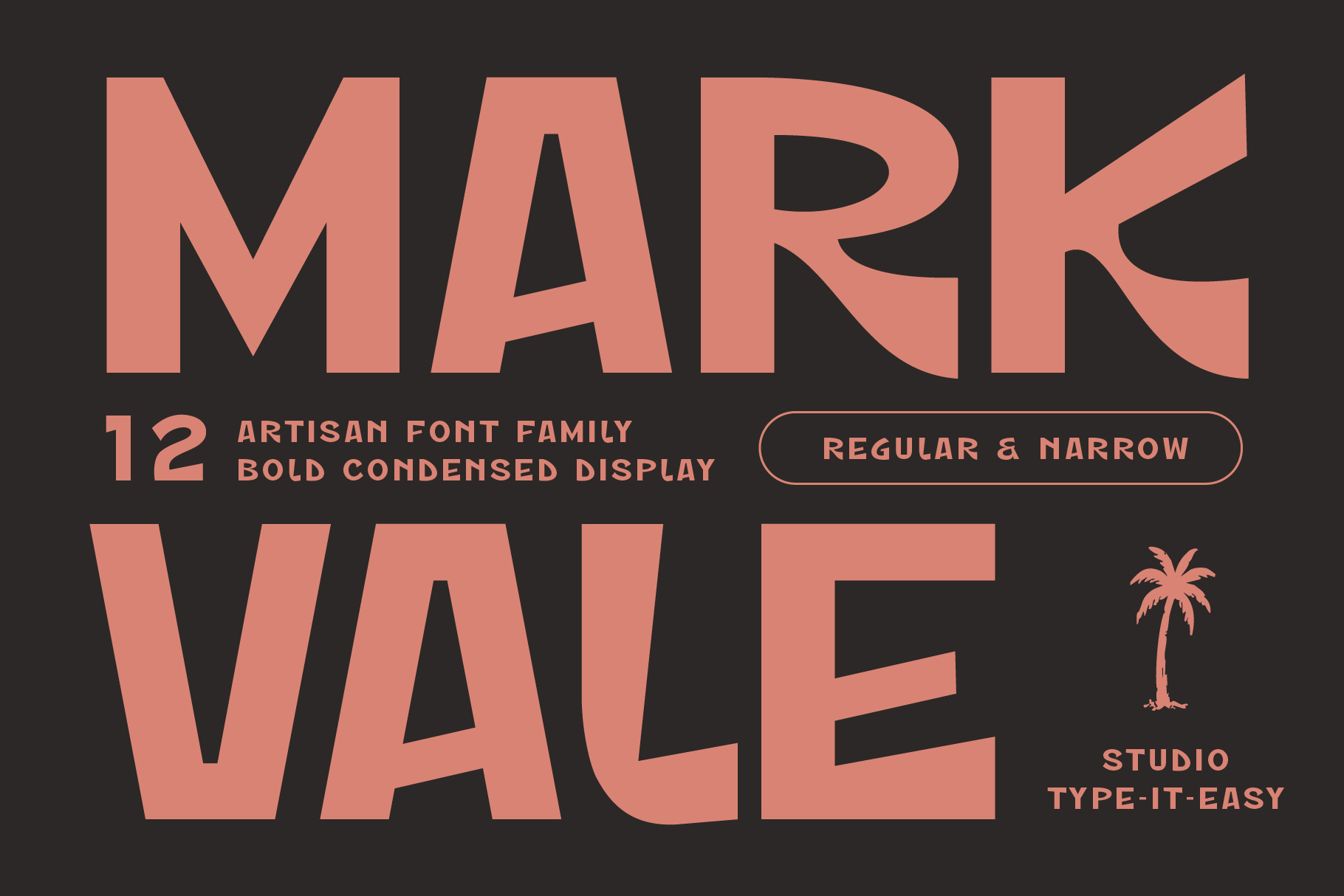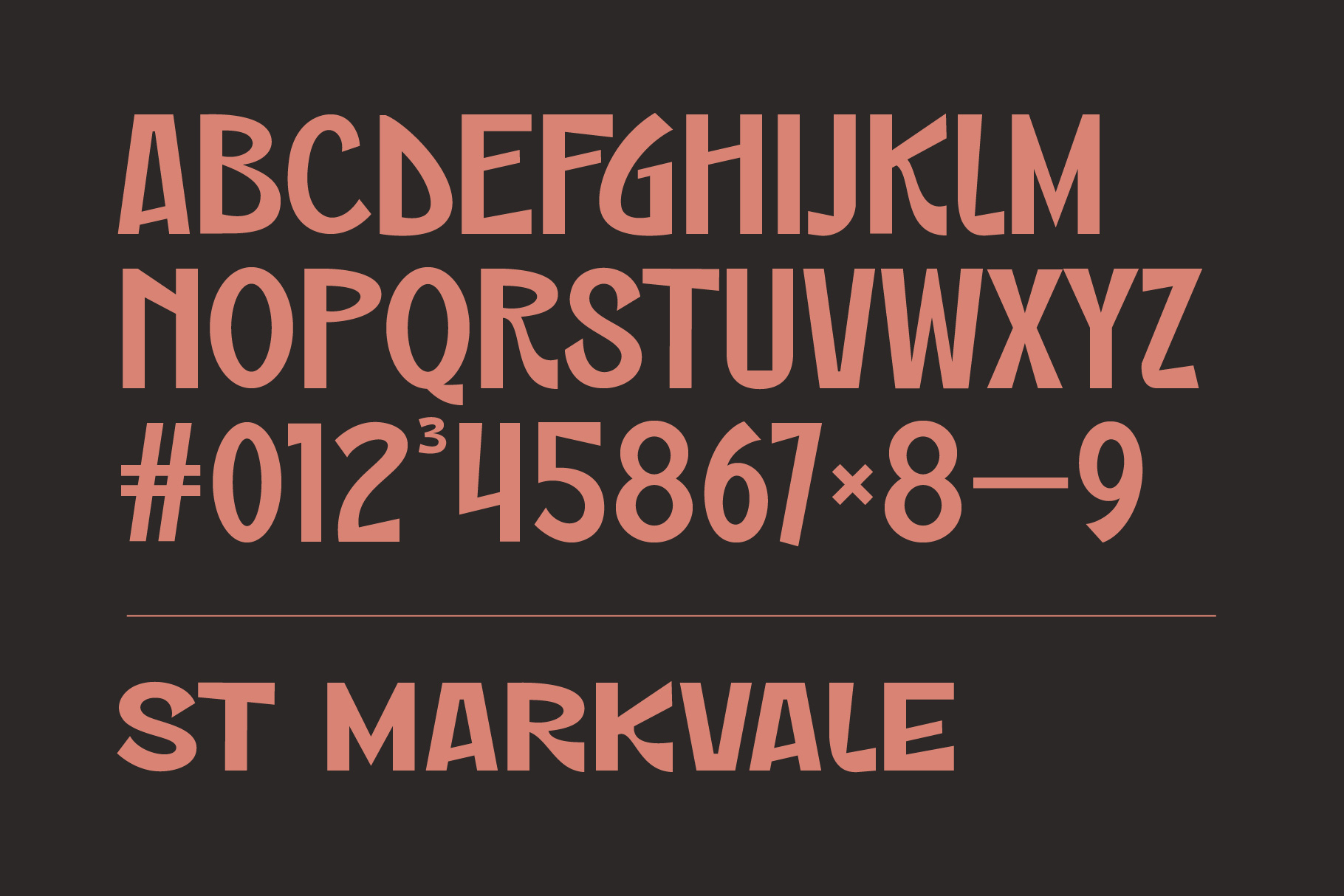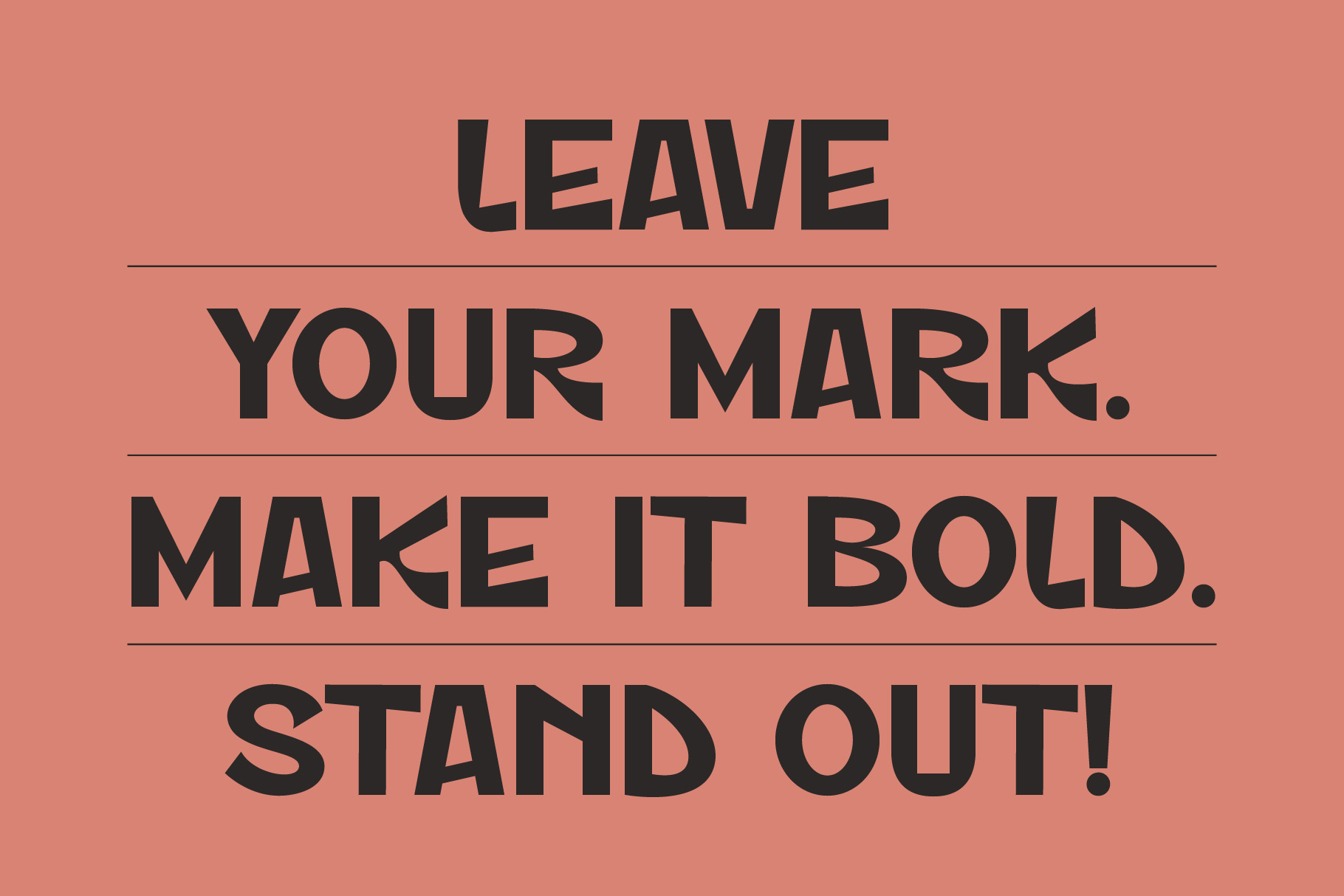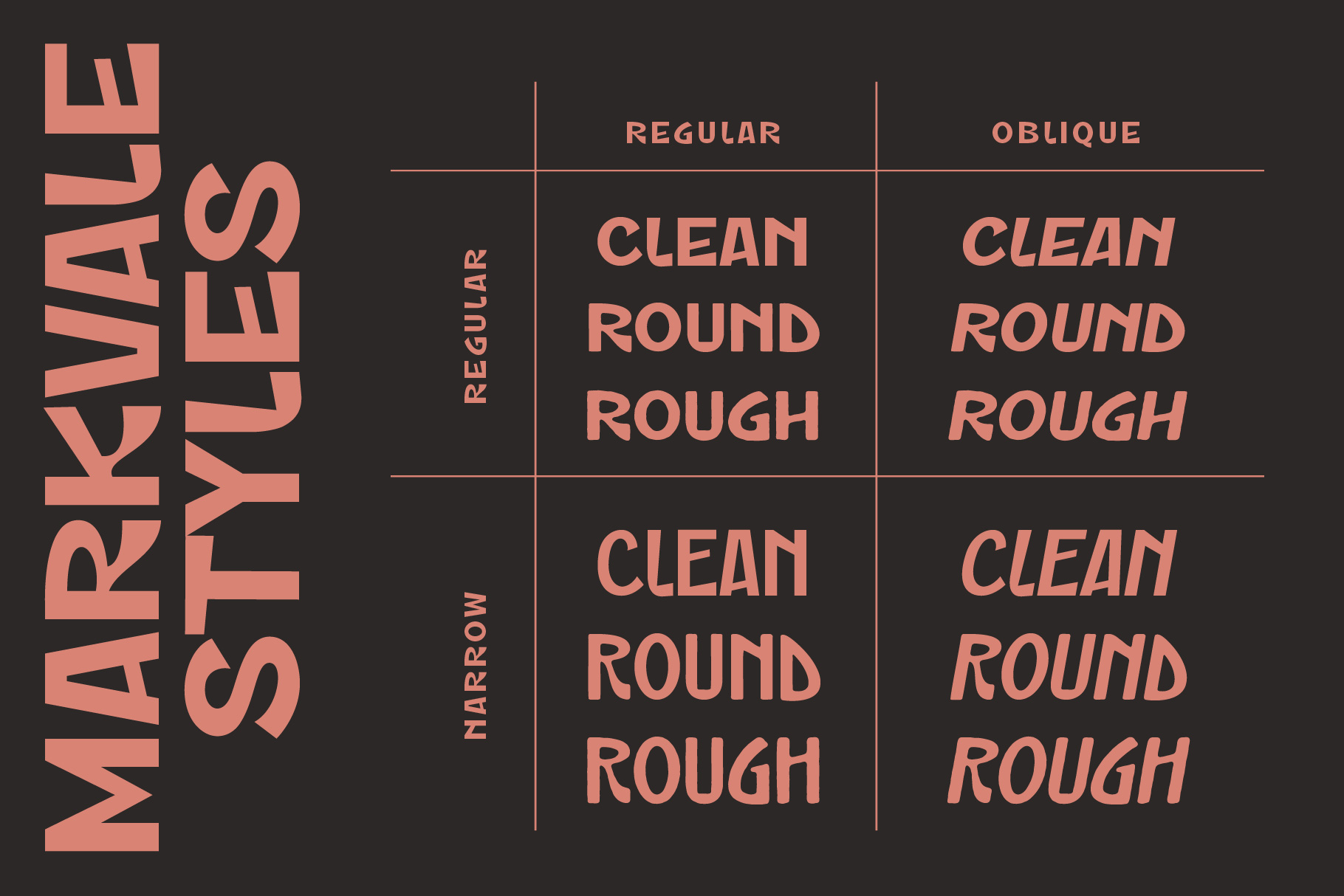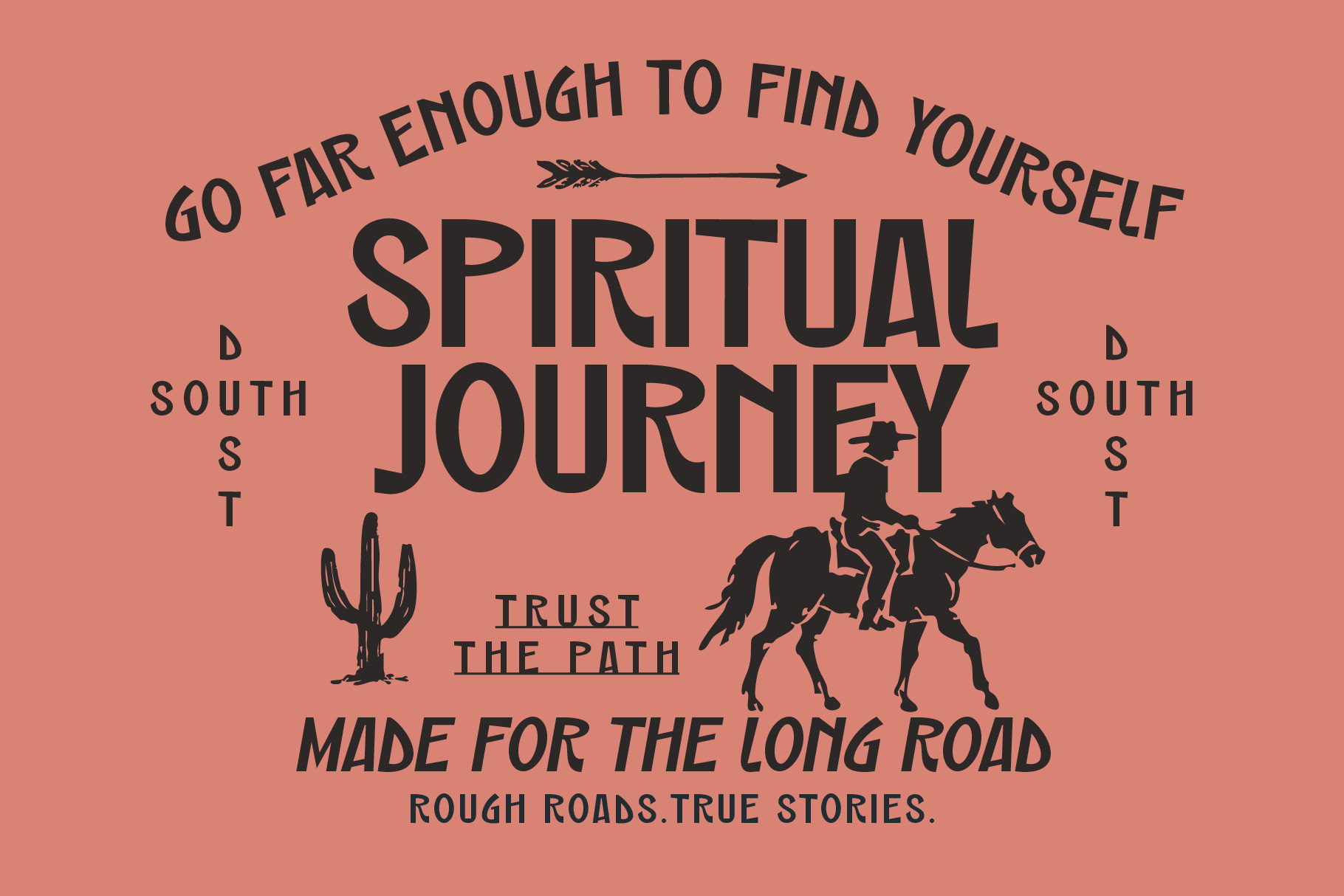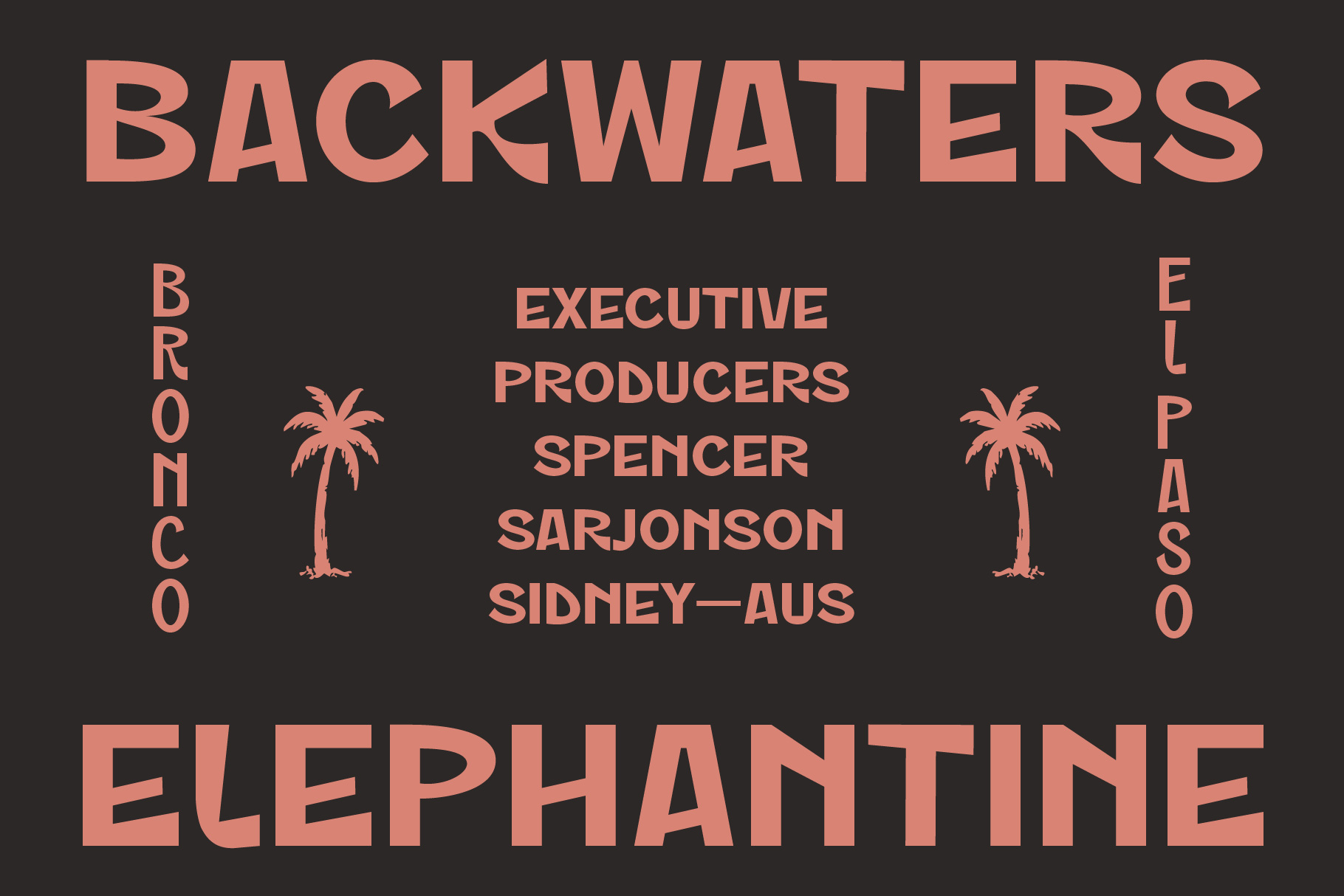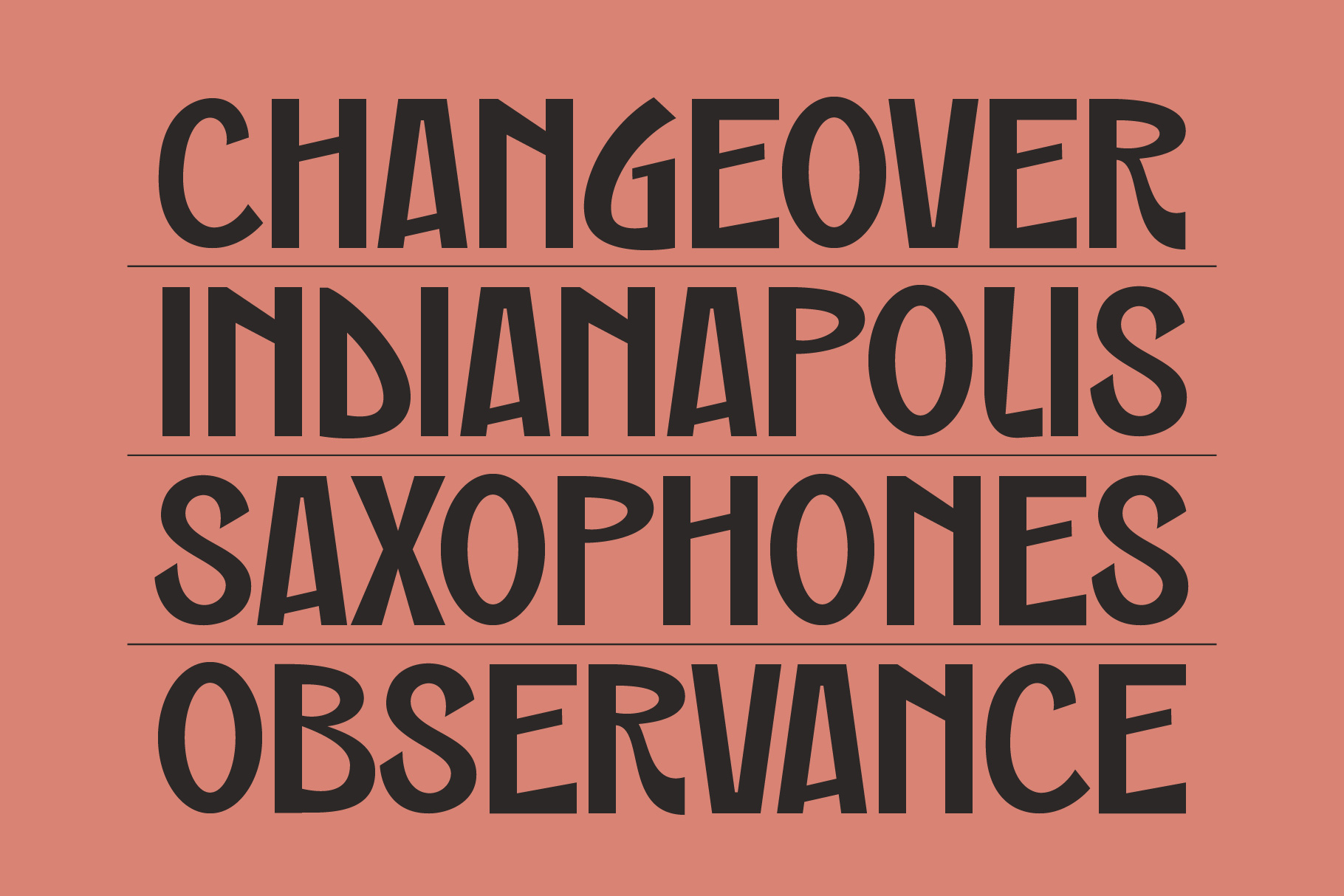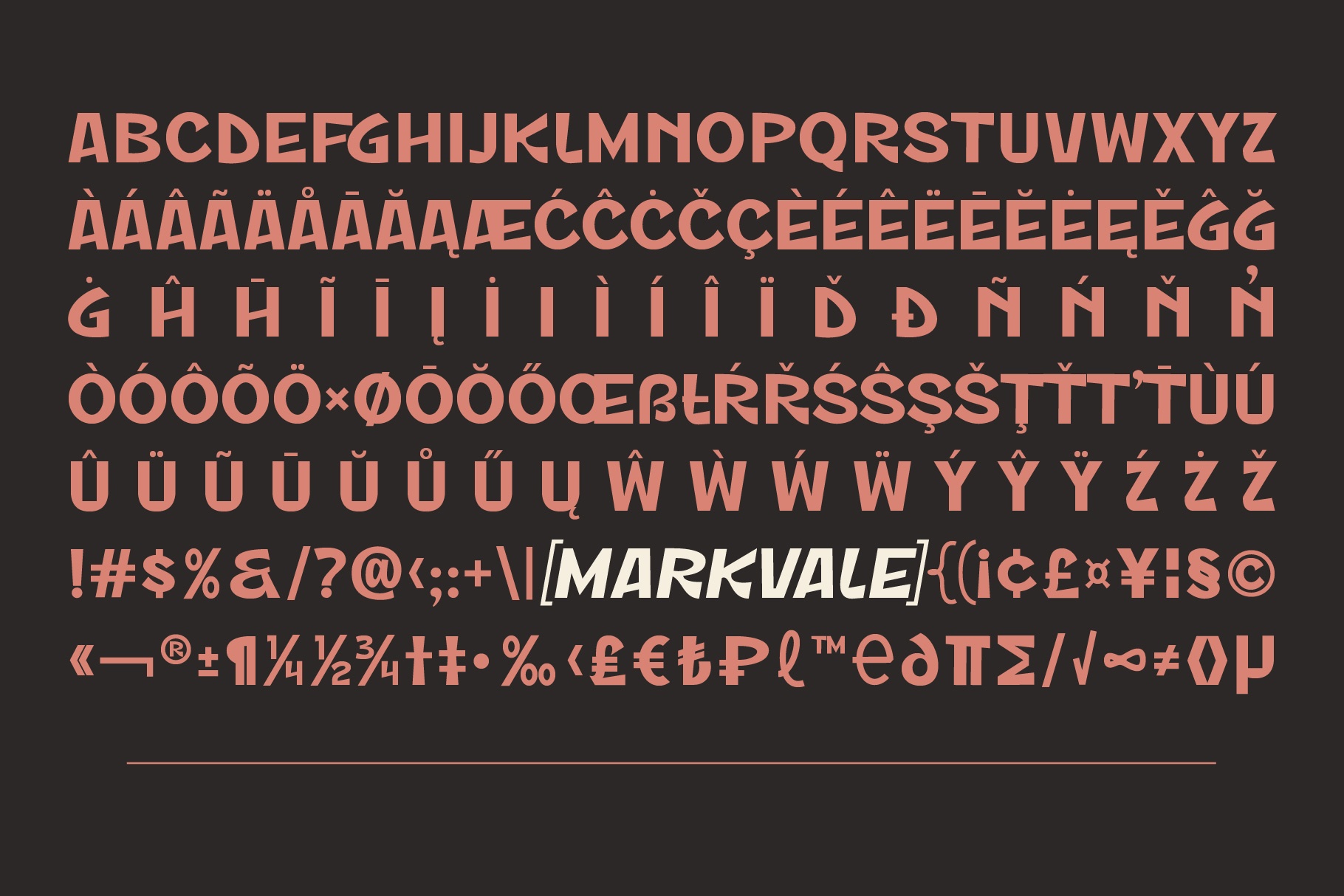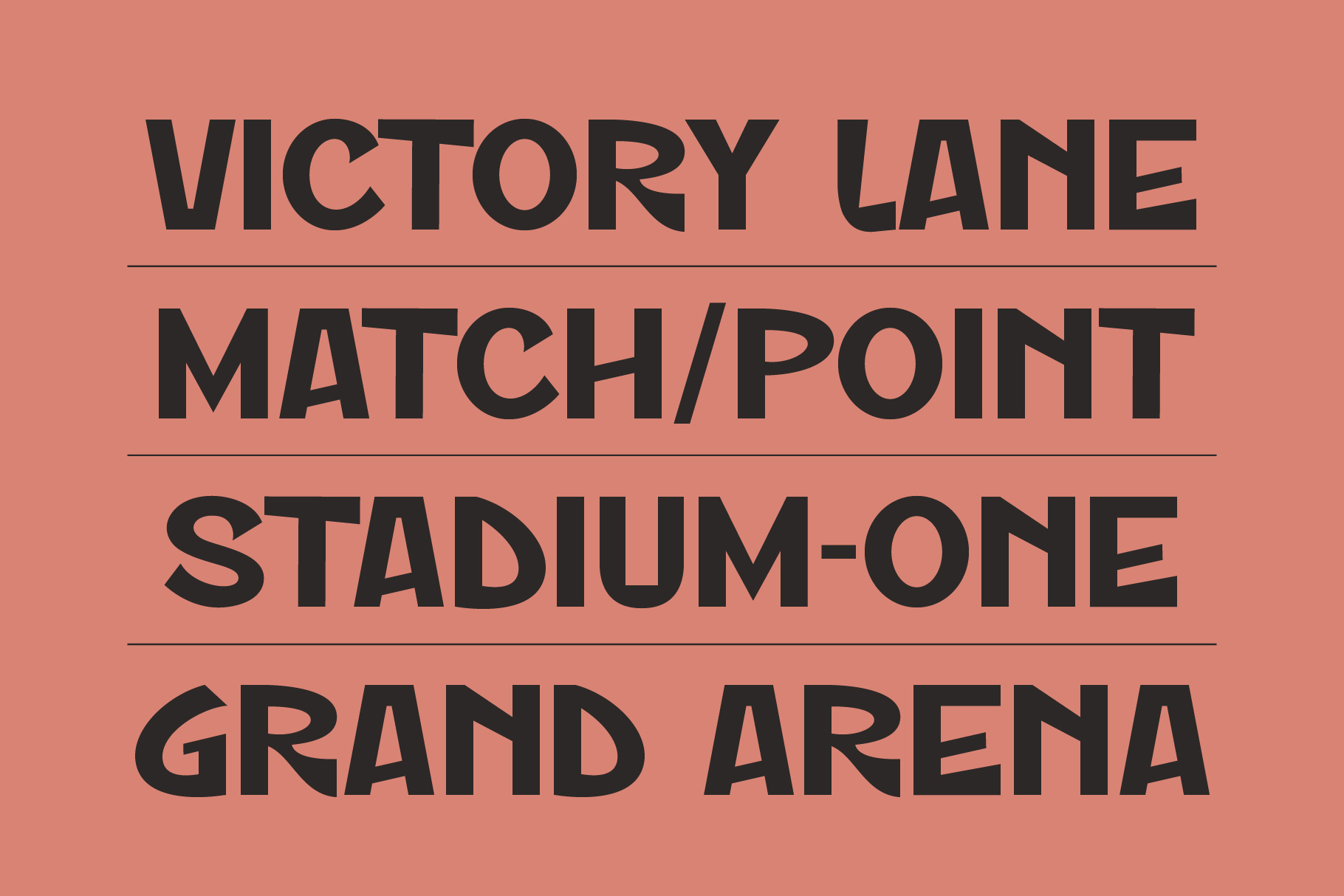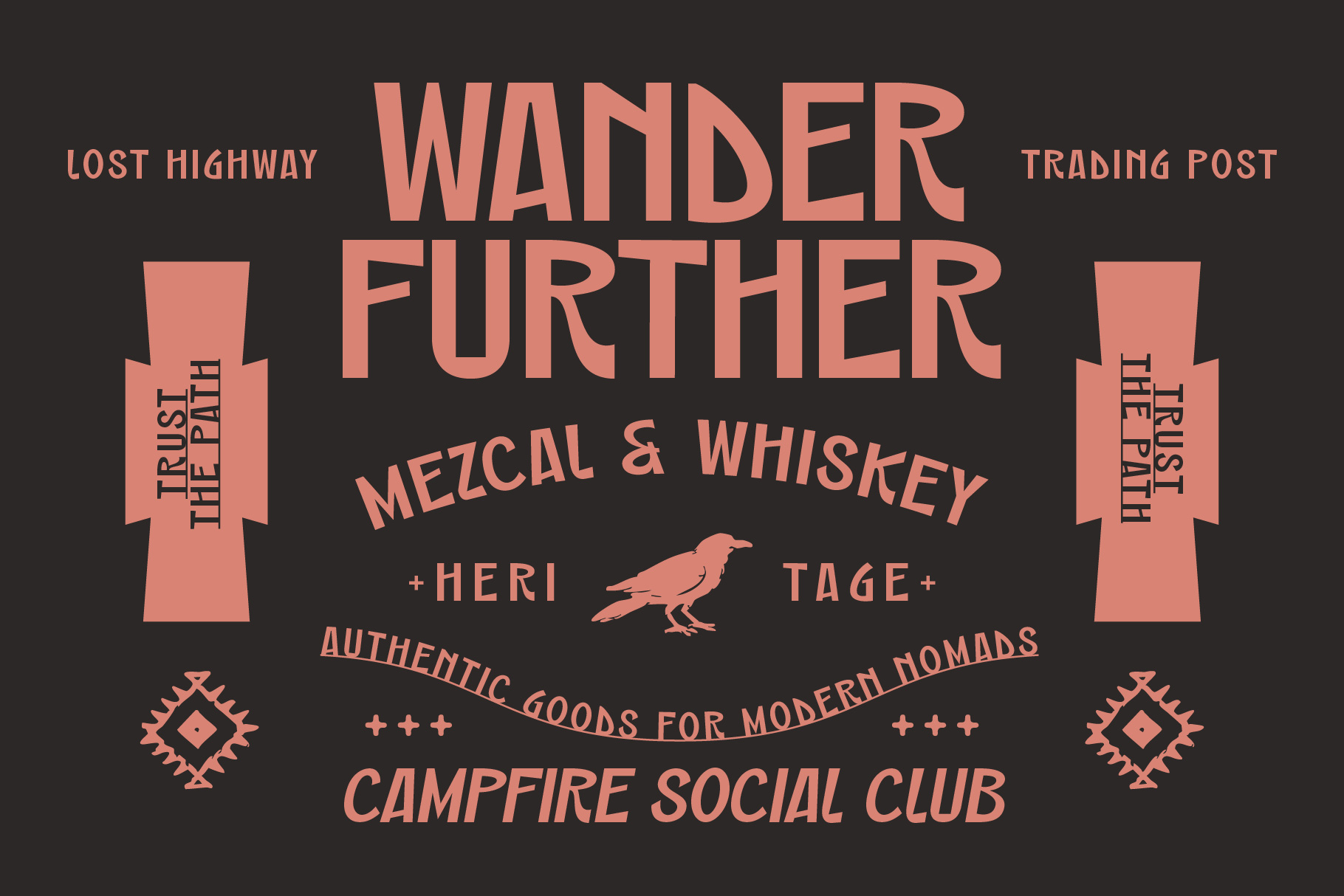
ST Markvale – Bold Rough Display Font Family
Markvale runs bold and condensed, built on flat vertical strokes and a slightly angular cut that echoes vintage industrial signage and collegiate lettering — a bold condensed display font family with the confidence of a motorsport livery or a letterman jacket. Twelve styles split into Regular and Narrow widths, Clean, Round, and Rough texture variants, and Upright and Oblique angles, so the same bold structure runs from a matte poster logotype to a wax-stamped craft label without switching families.
The Clean upright cuts hold a straight athletic edge, the Rough variants pick up a hand-stamped, worn-signage texture, and the Oblique angles add motion for racing decals and esports lockups. Use it for sports and motorsport branding, streetwear and apparel graphics, craft beverage labels, gaming and esports identities, event posters, and editorial headlines.